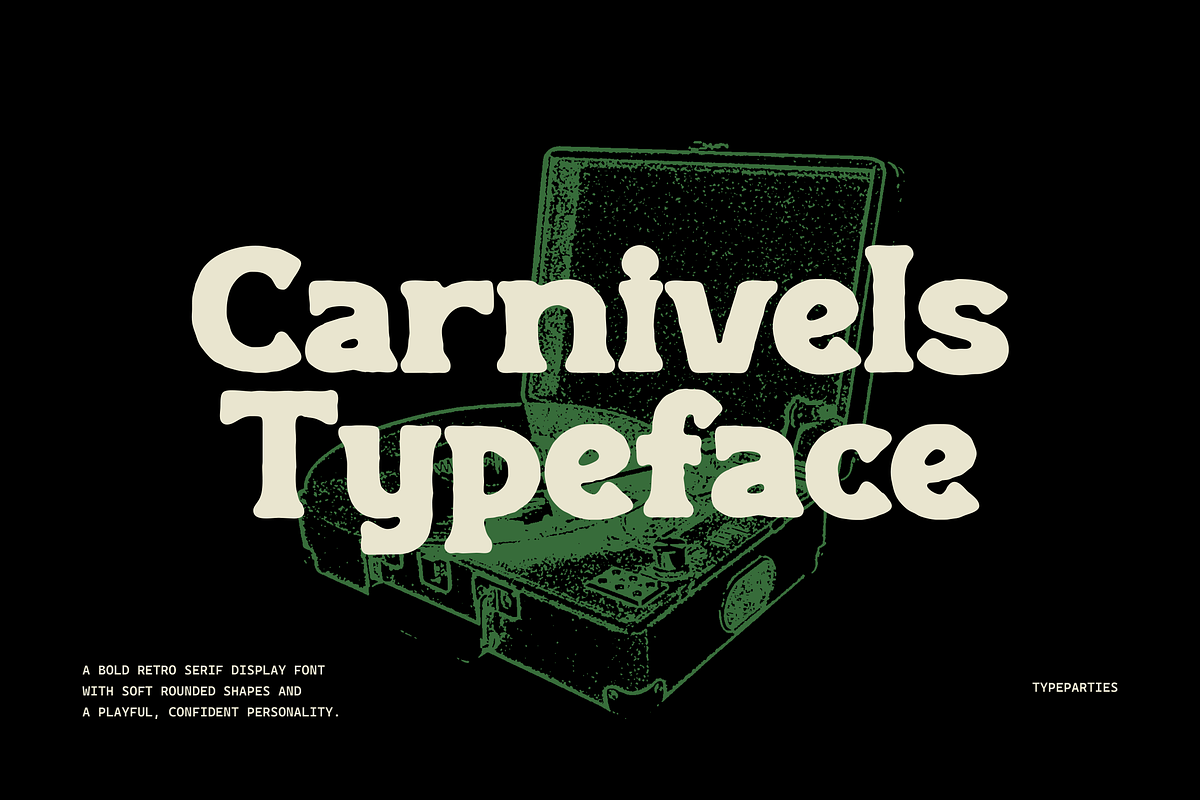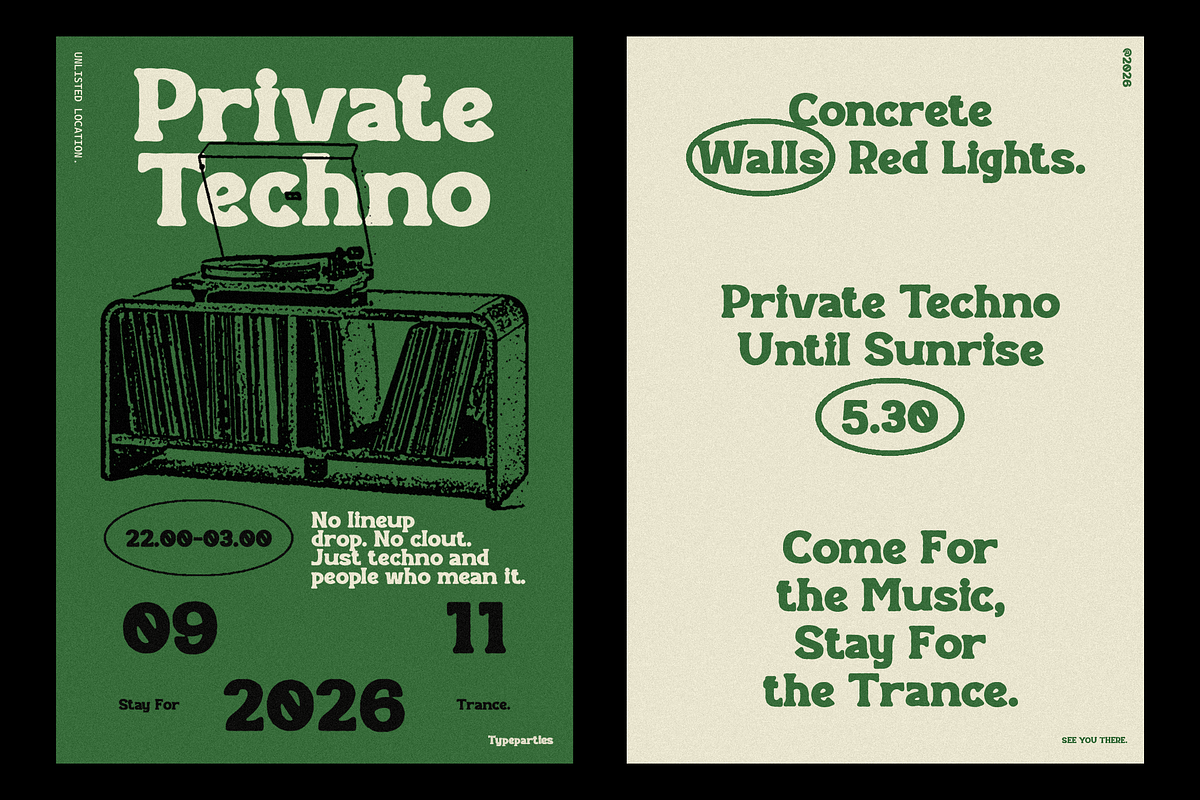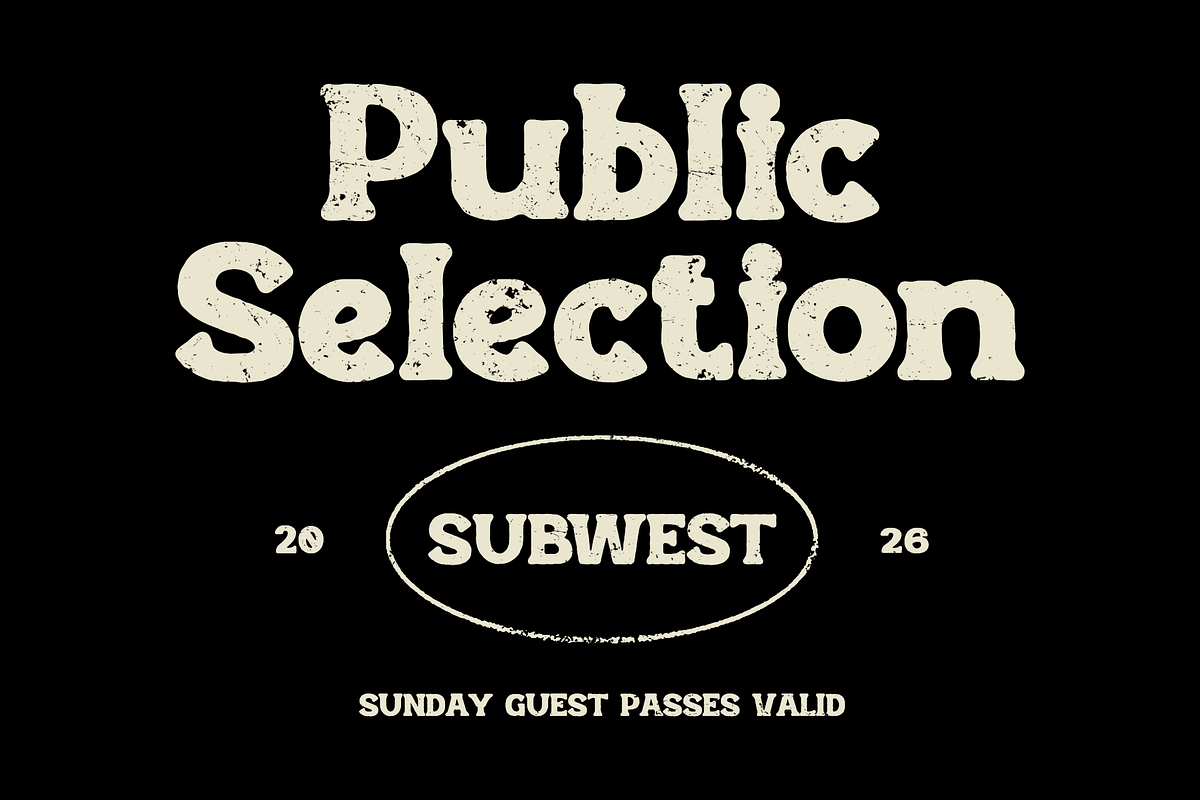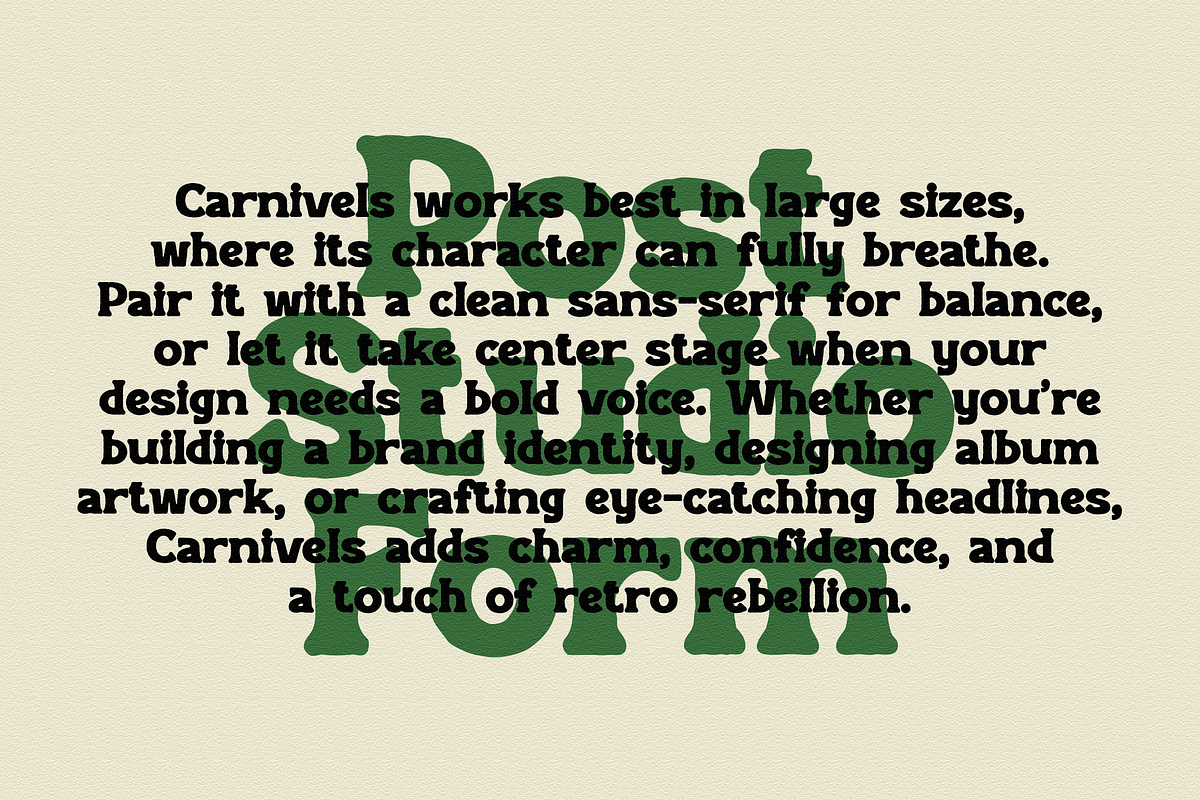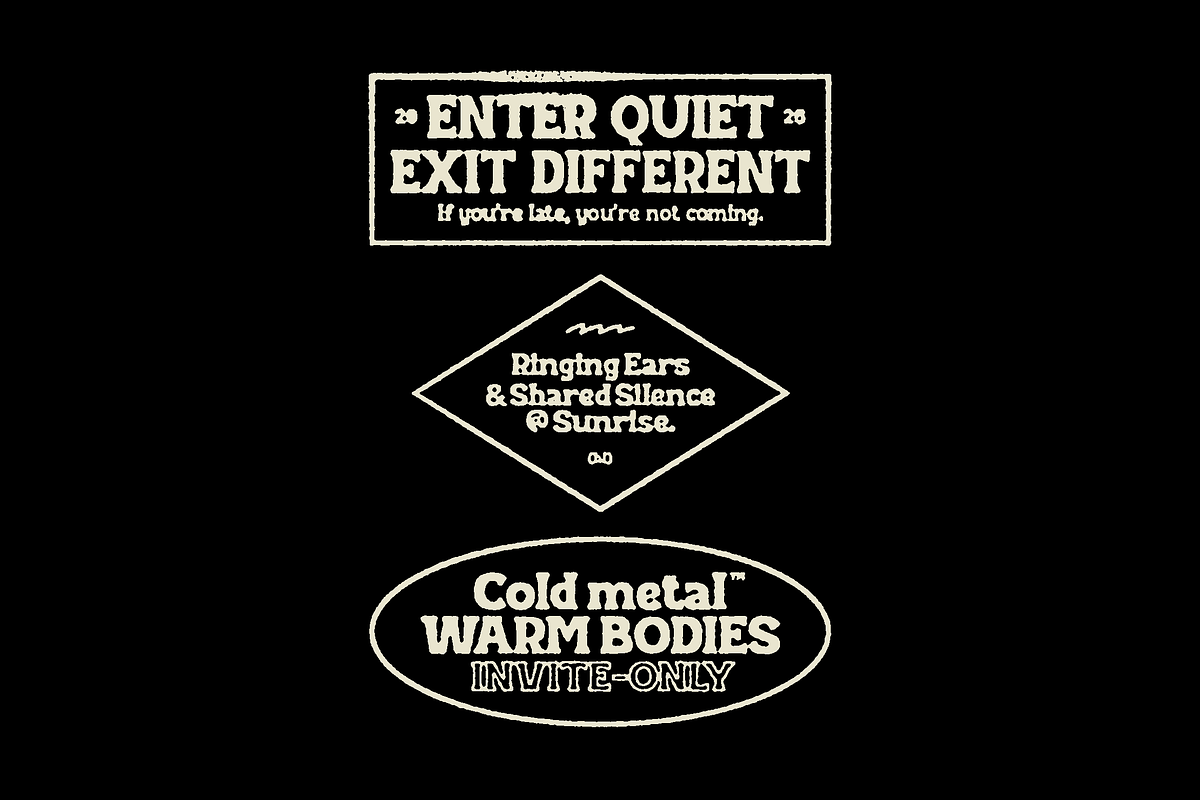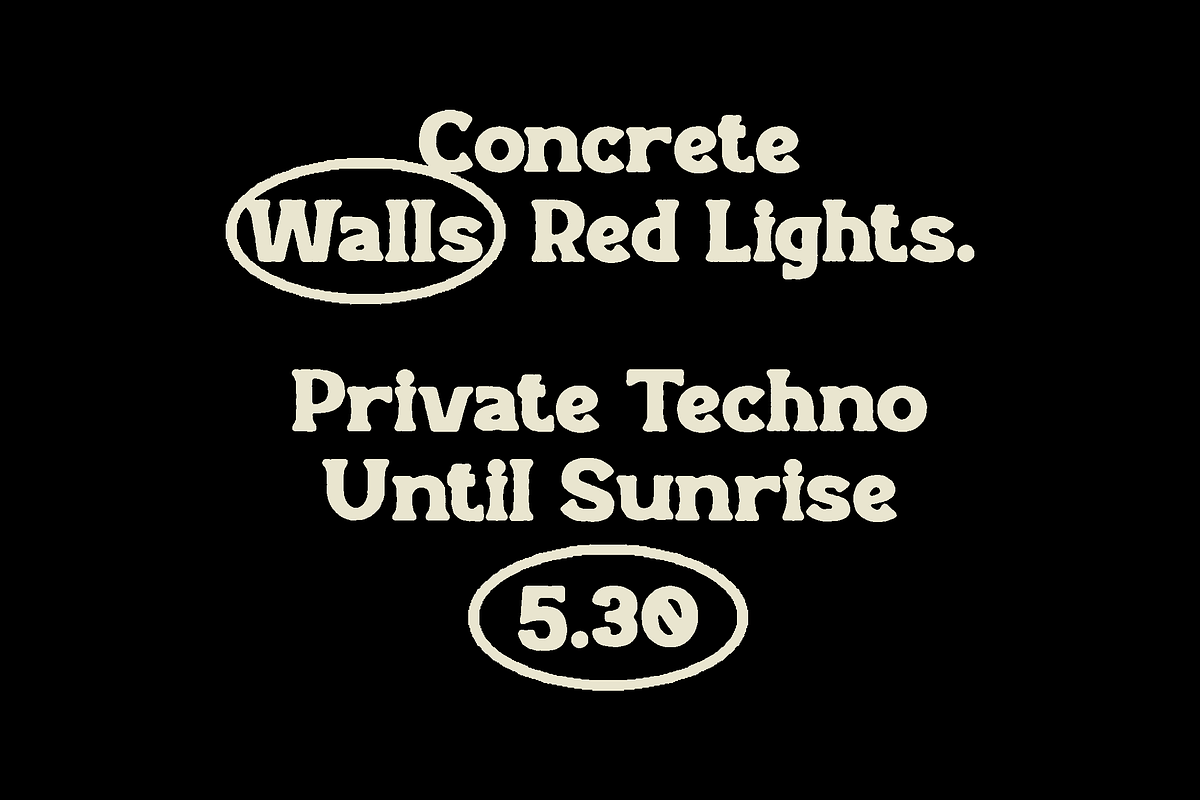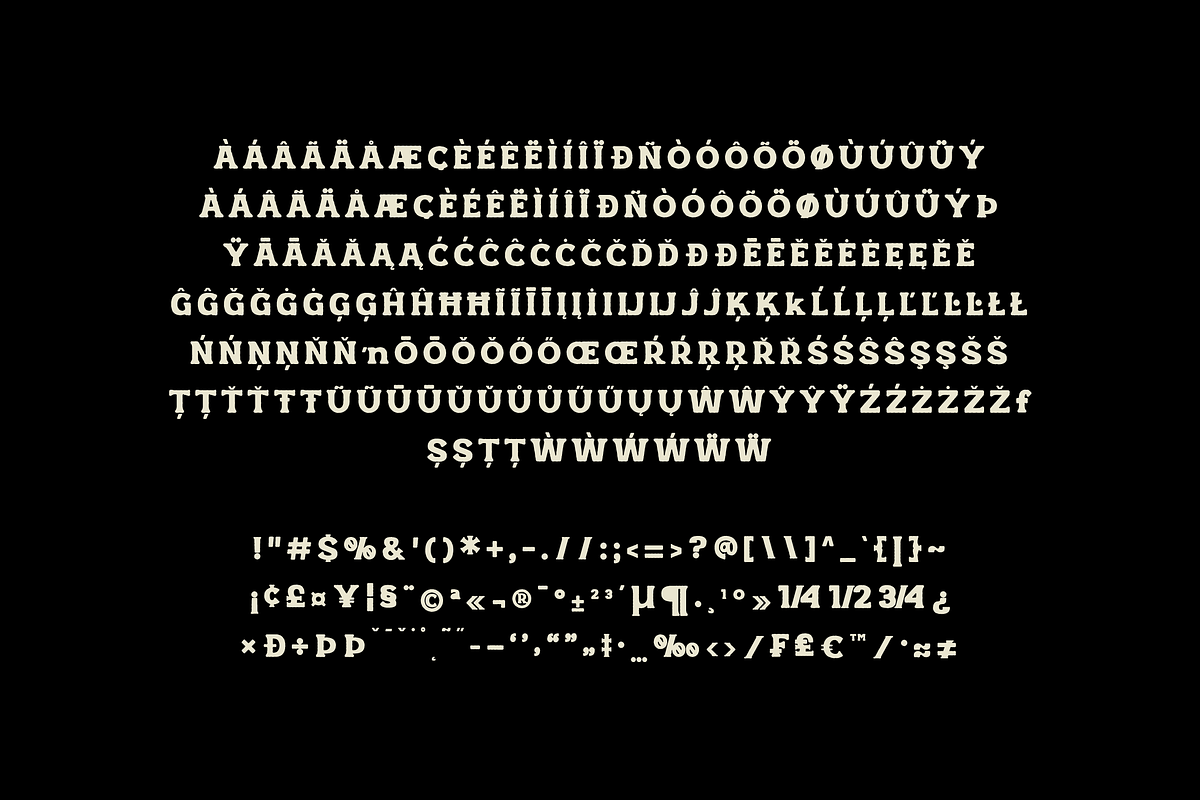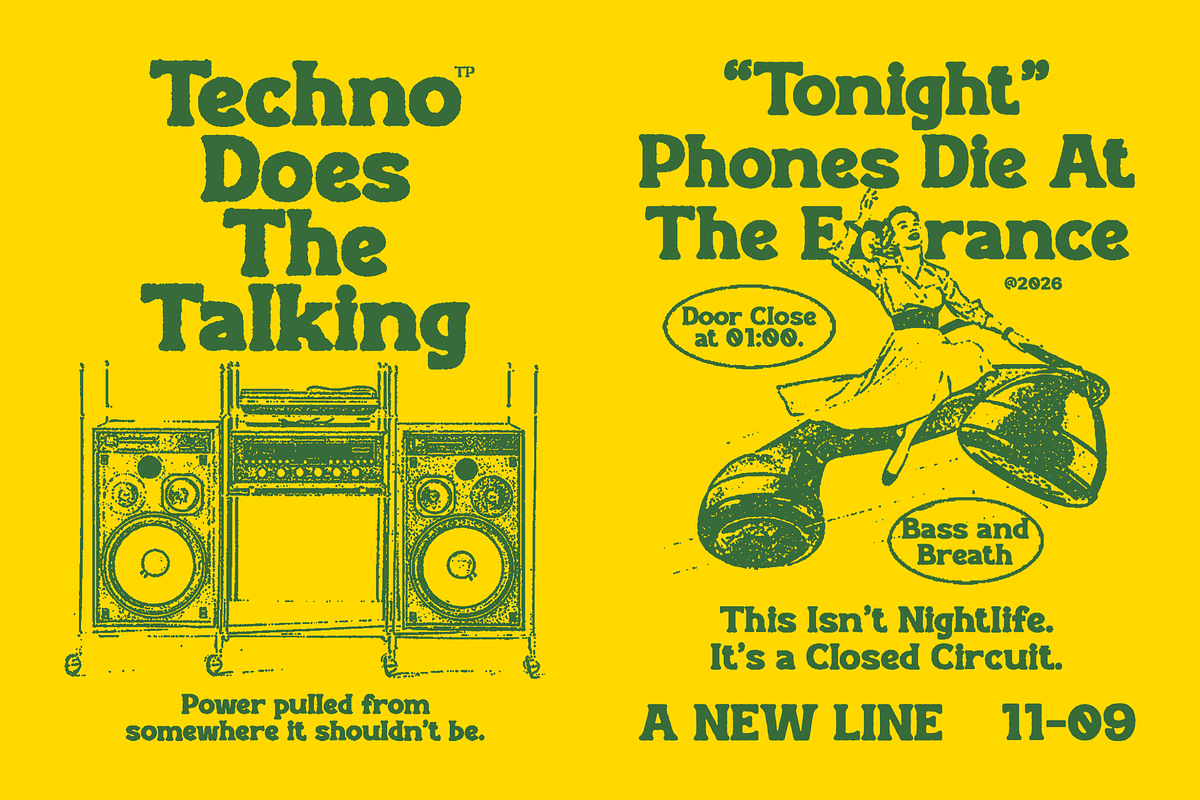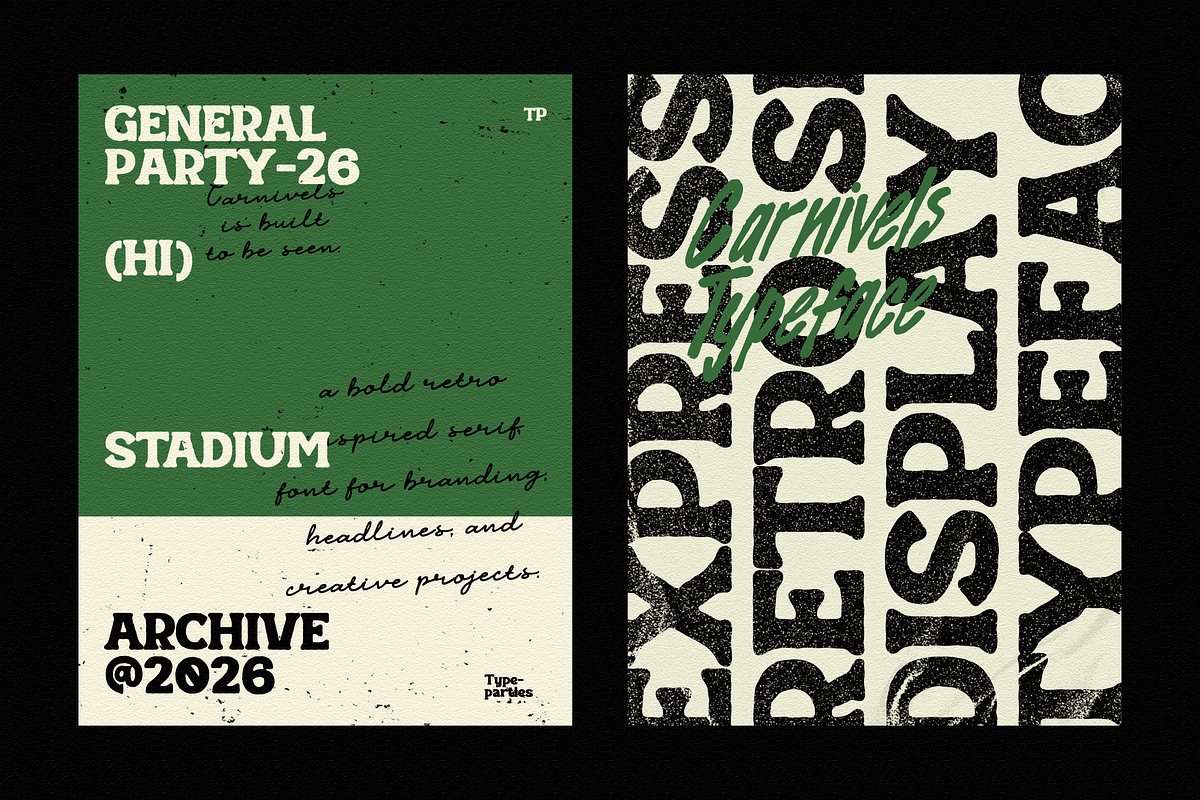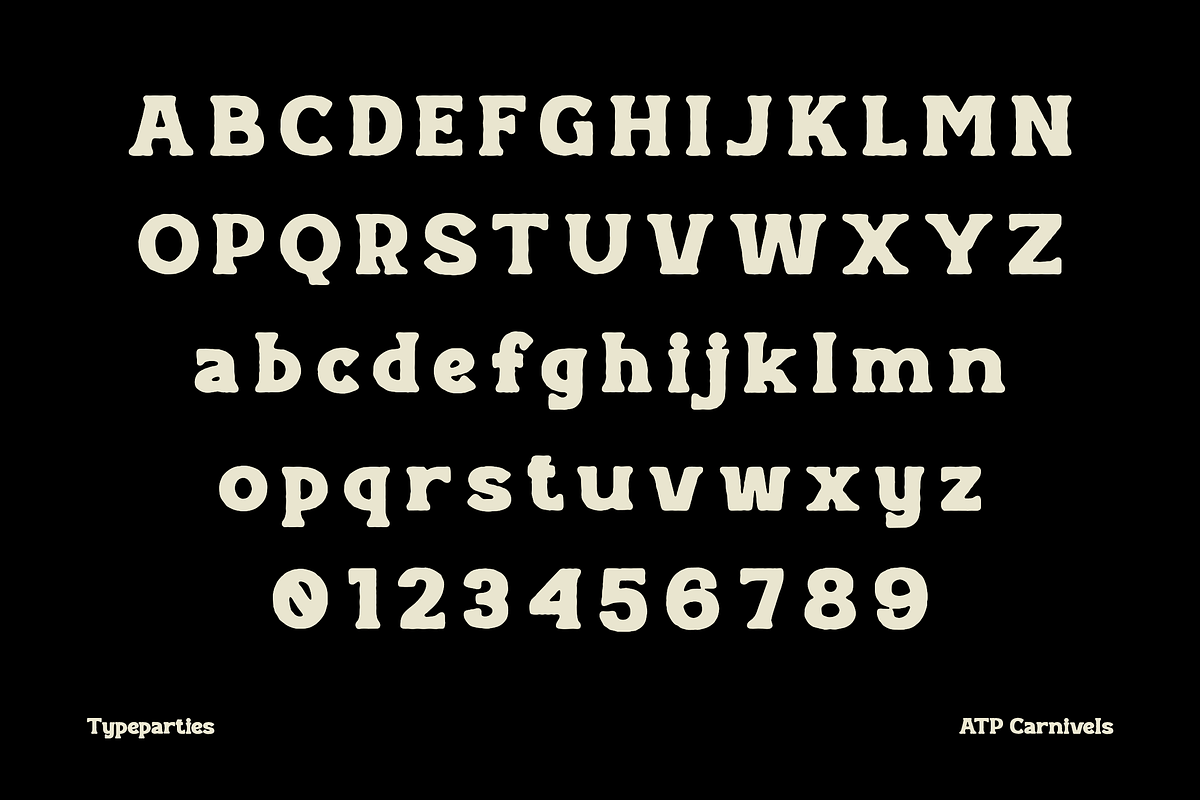
Carnivels - Bold Retro Serif Font
Carnivels is a bold retro serif display font built to stand out without trying too hard. Inspired by vintage lettering with a soft, rounded attitude, Carnivels brings a playful confidence that feels nostalgic and fresh at the same time.
Designed for headlines, logos, and expressive branding, this typeface shines when it needs to be seen. Its chunky serifs and smooth curves create a warm, human feel—perfect for creative studios, indie brands, editorial layouts, posters, and packaging that want personality over perfection.
Carnivels works best in large sizes, where its character can fully breathe. Pair it with a clean sans-serif for balance, or let it take center stage when your design needs a bold voice. Whether you’re building a brand identity, designing album artwork, or crafting eye-catching headlines, Carnivels adds charm, confidence, and a touch of retro rebellion.
Features -Uppercase -Lowercase -Numerics -Punctuation -Multilingual